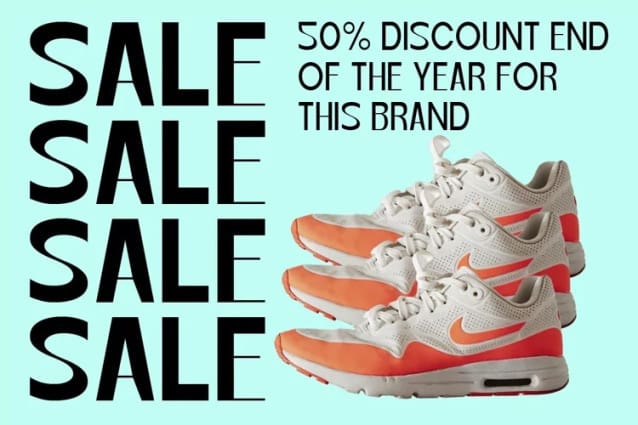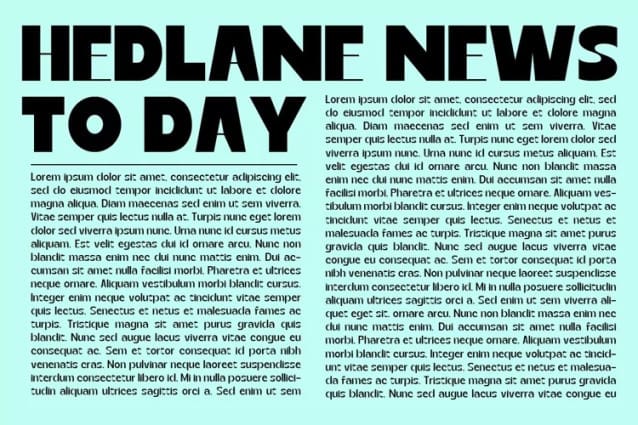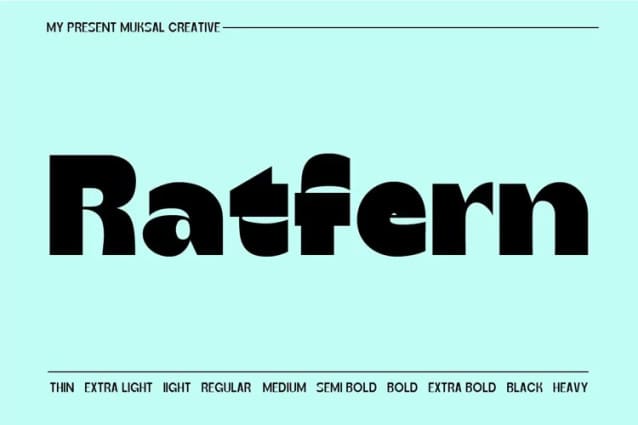
Ratfern Font
Ratfern Font is a unique and modern family of Sans serif fonts. Simply Conception has 10 families Regular font, starting from the small thin to the largest Heavy. This typeface is versatile and can be used successfully in magazines, posters, branding, websites.